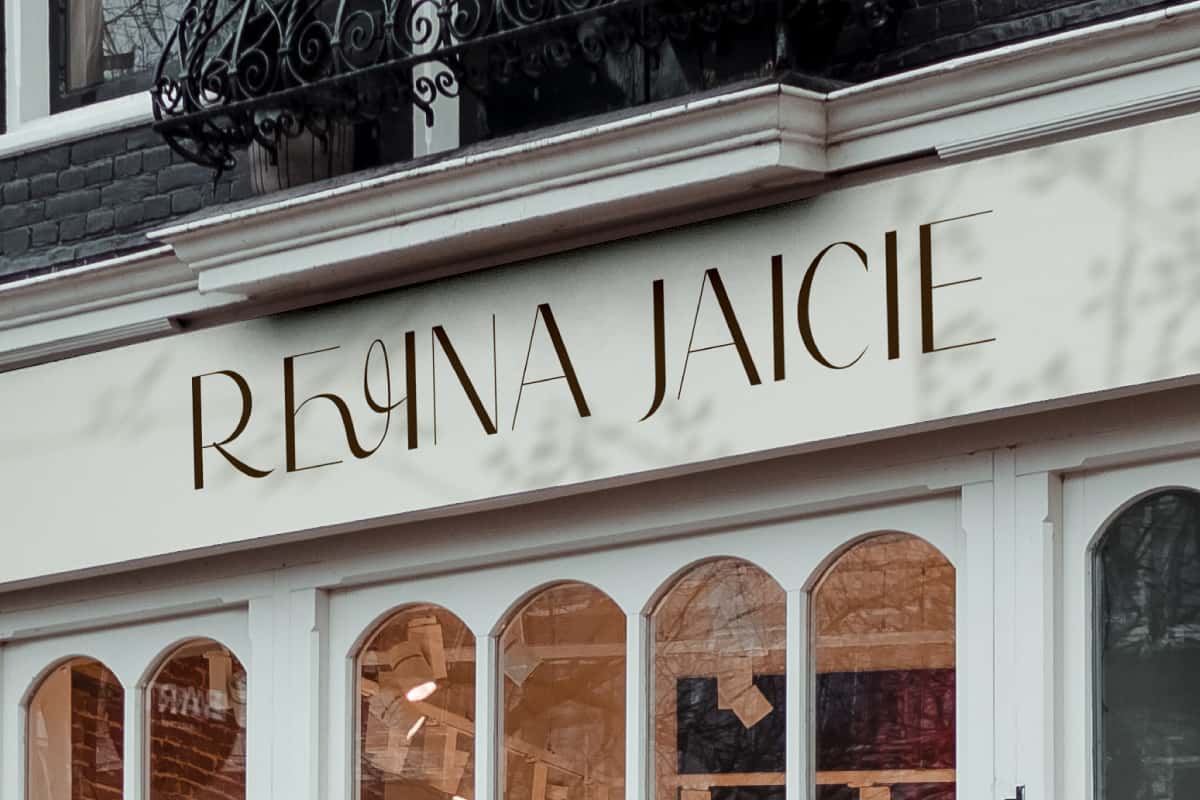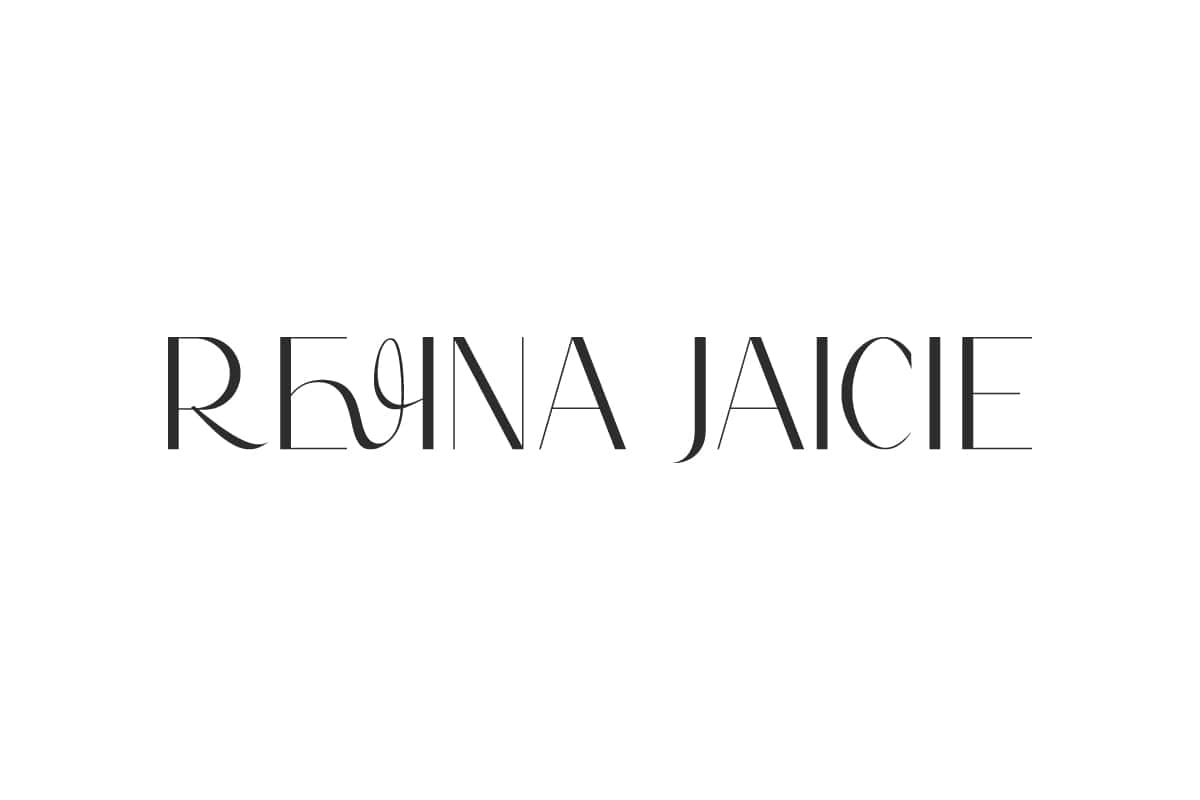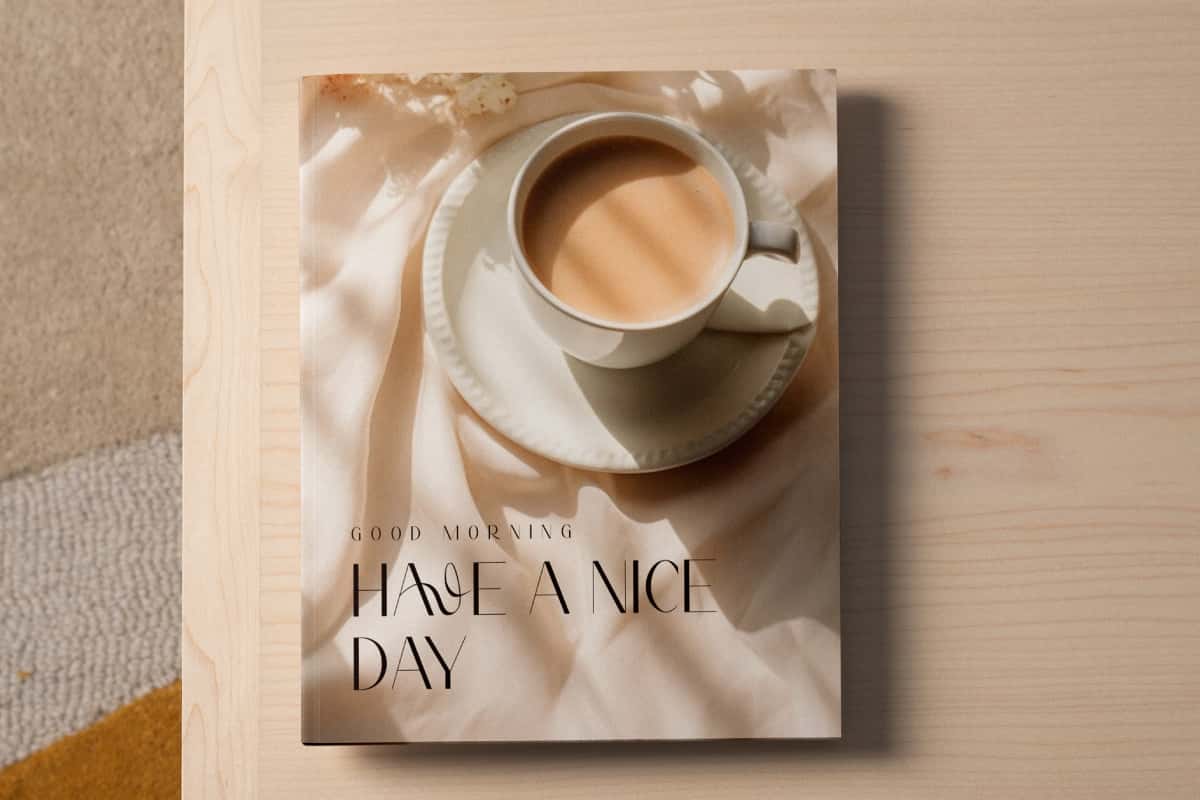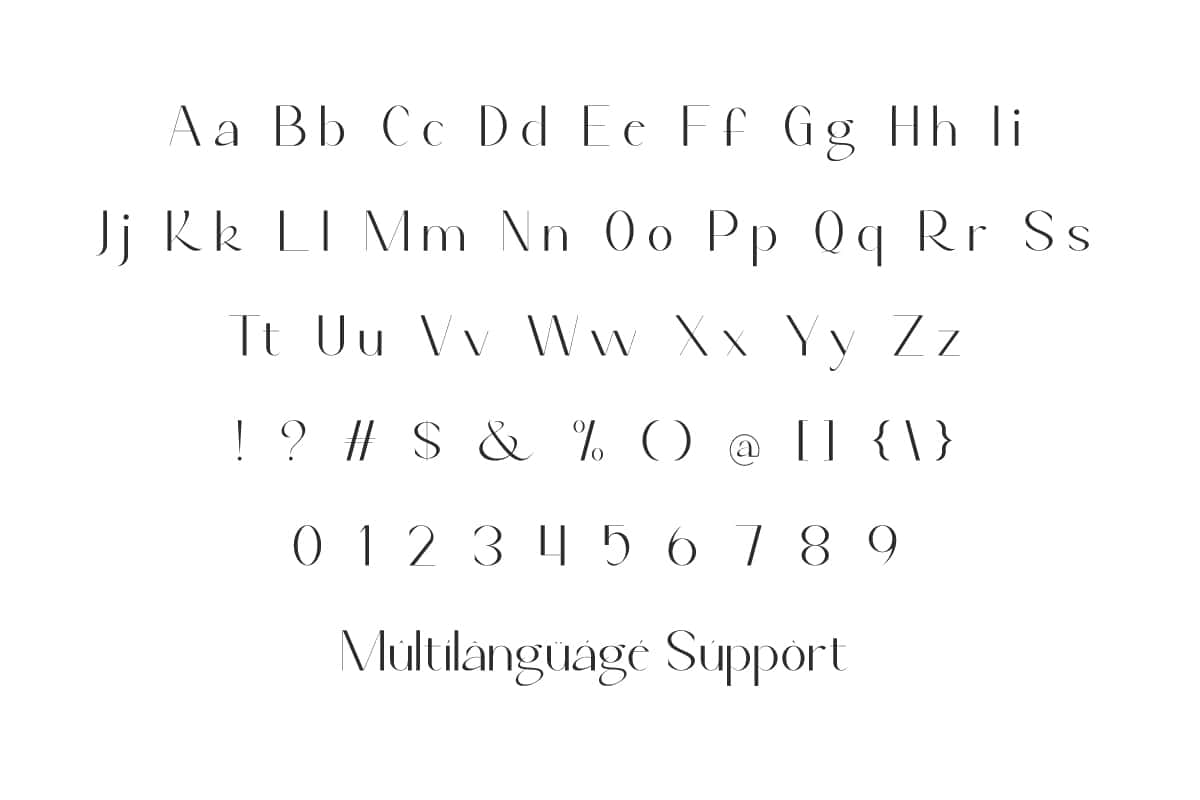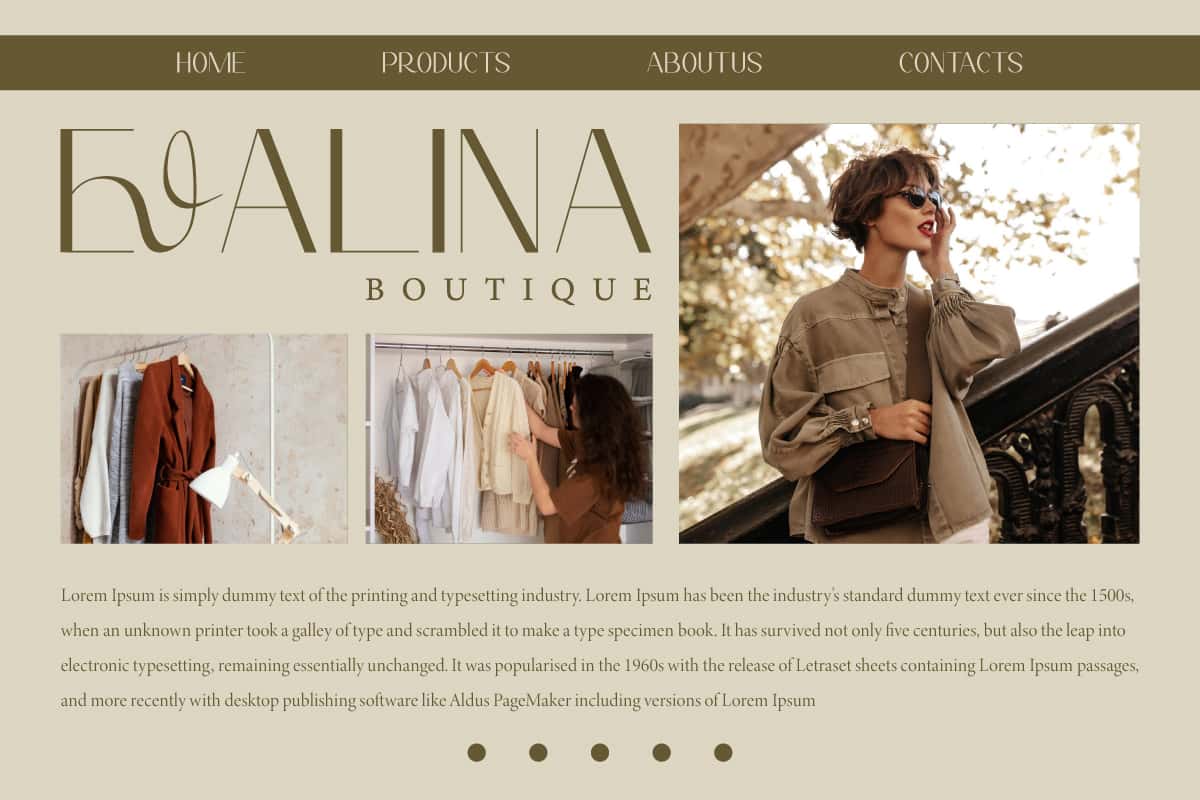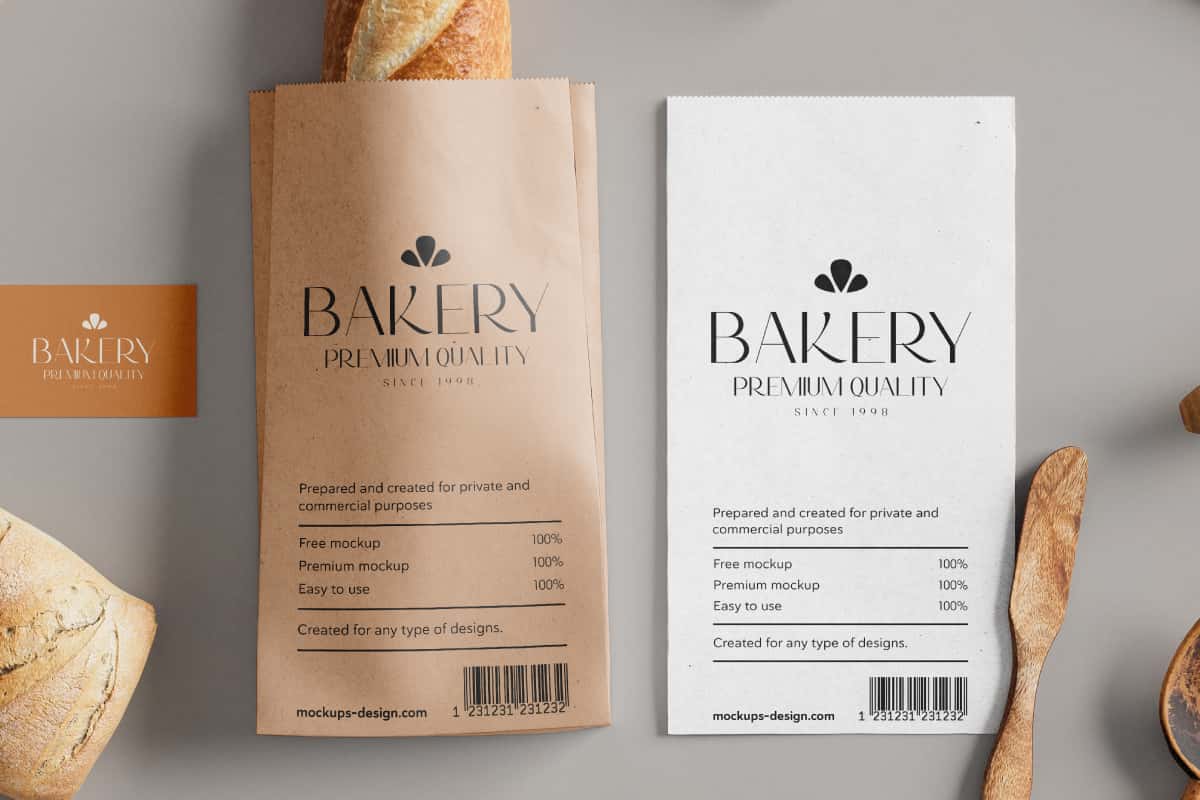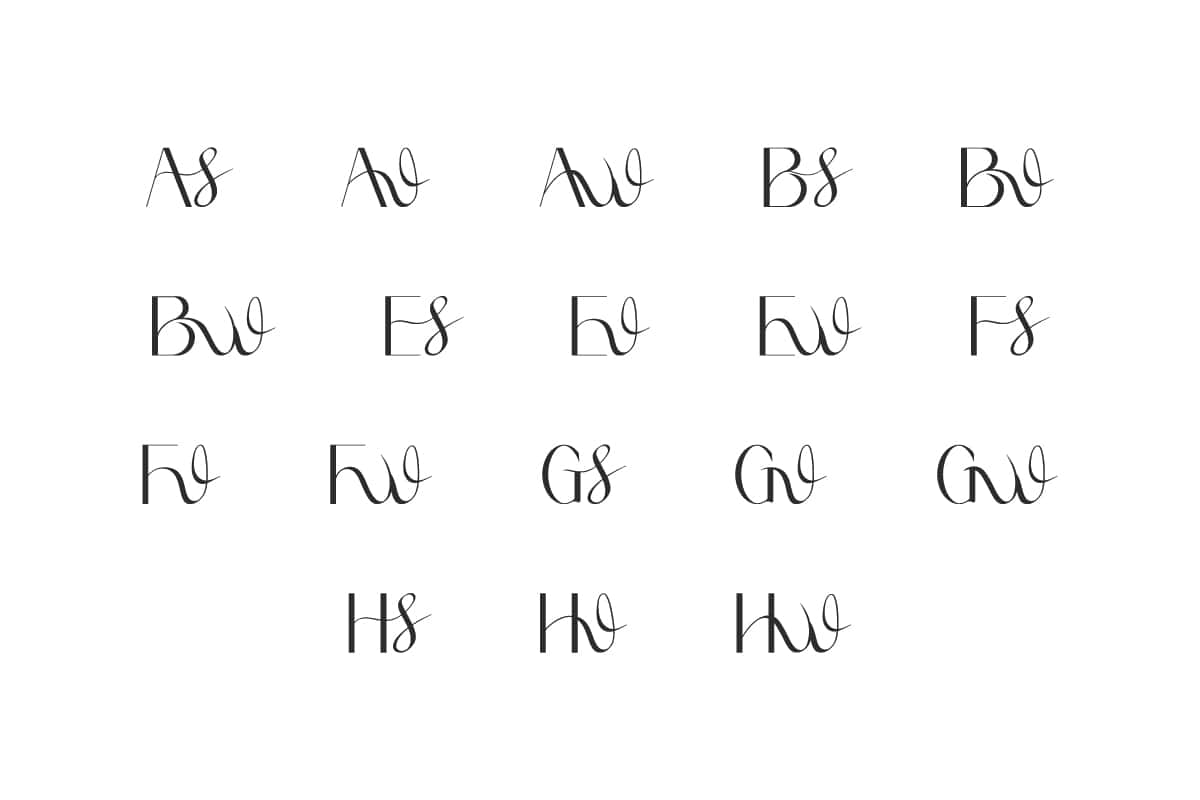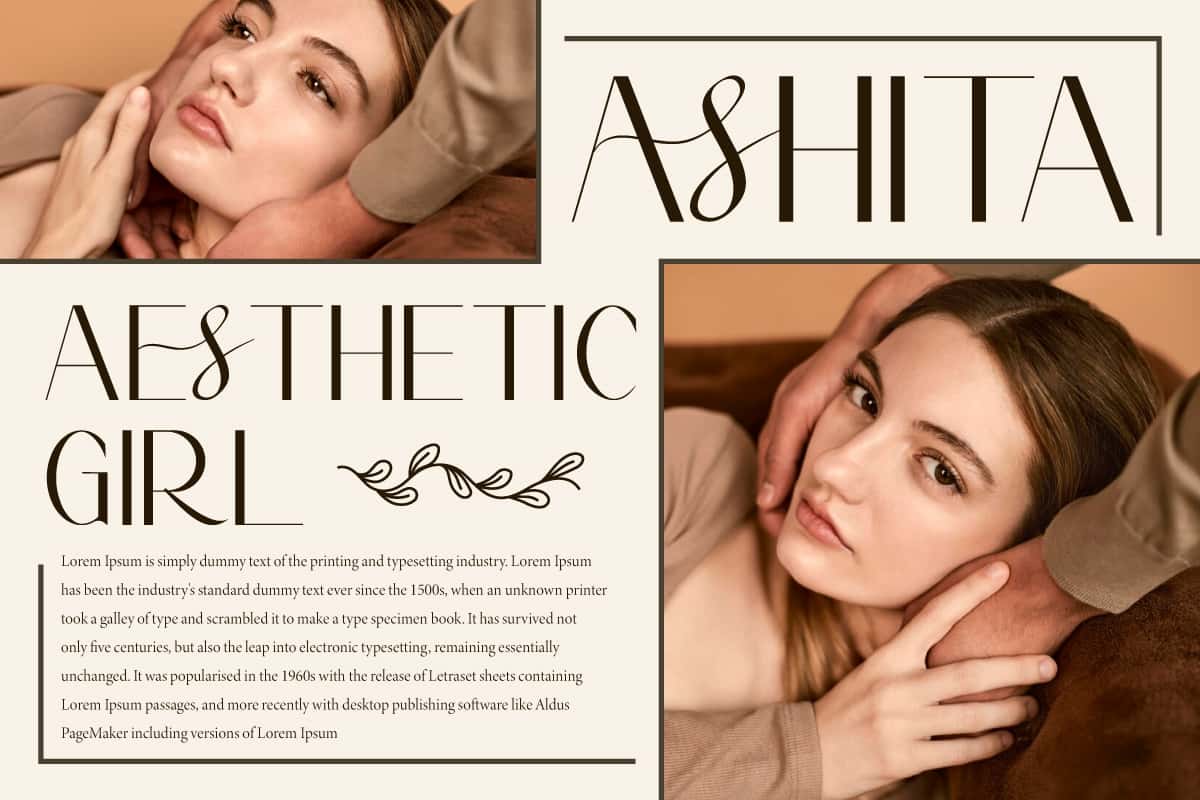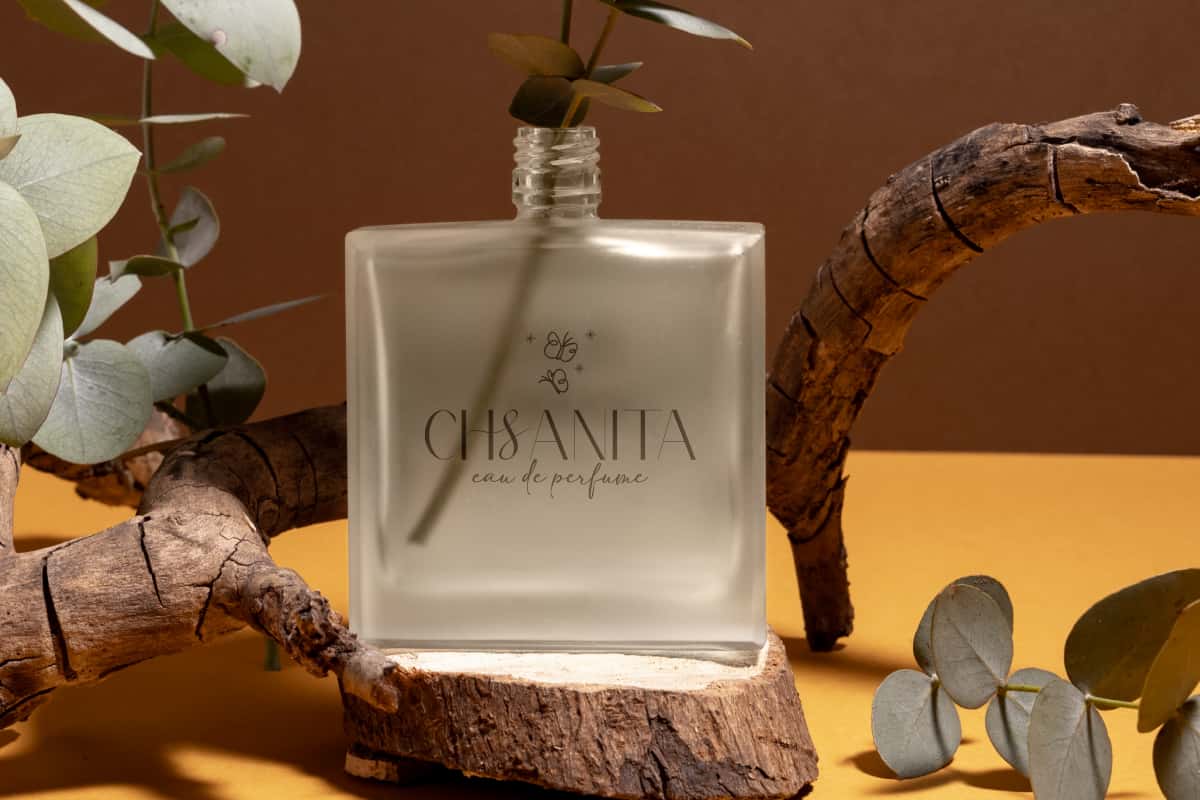
Revina Jaicie Font
Revina Jaicie Font is an elegant font that is perfect for giving you the option to experiment in a variety of high-end designs, adding a touch of beauty.
Revina Jaicie Font is an elegant sans serif display font with a luxurious feel, exuding a strong feminine aura and immense beauty. Perfect for accessories and gift, architecture, bakery, cafes, fashion, handicraft, home furniture, hotel, interior design, photography, real estate, skincare, spa salon, and More.
Revina Jaicie Font includes full set of Uppercase and Lowercase Basic Characters, Numbers, Punctuation, Symbols and Ligature. It has a sleek and stylish typeface that brings a luxurious and feminine feel to any design, making it perfect for apps, blogs, brand logo, brochure, covers, embossed design, flyer, headers, invitation, label, mockup, product packaging, quotes, stationery, sticker, template, titles, website, etc.